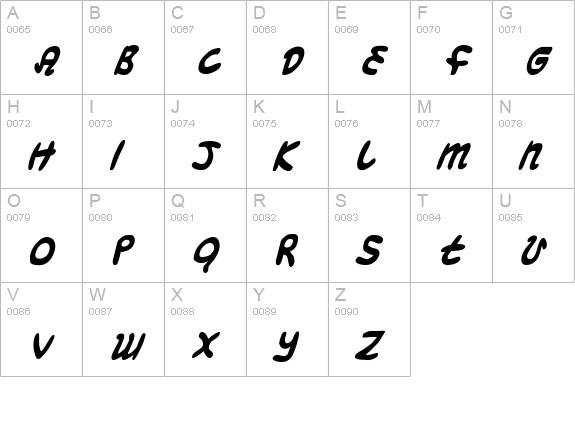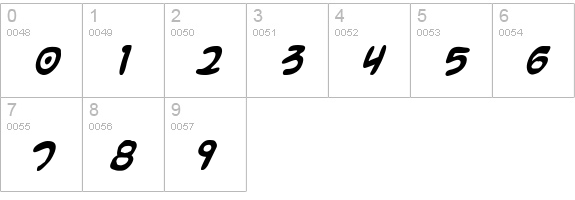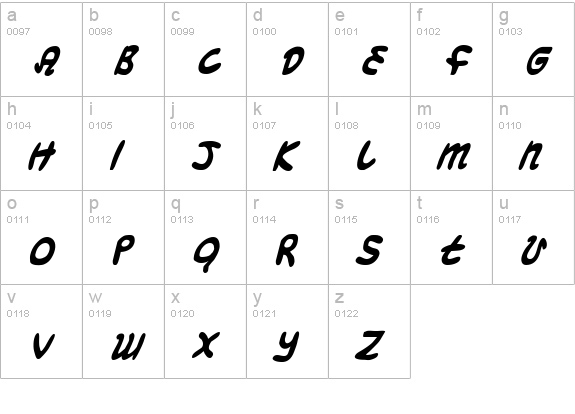
Magic Beans Condensed Italic Font Details
Magic Beans Condensed Italic is a distinctive, condensed-width, italic variant in the Magic typeface family \xE2\x80\x94 well suited to design and typography projects.
Magic Beans Condensed Italic font is a whimsical and playful typeface that adds a touch of magic to any design project. Its elegant and slanted italic style exudes a sense of creativity and uniqueness, making it perfect for branding, invitations, and other creative endeavors. This font features a condensed design that allows for more text to be displayed in a limited space without sacrificing readability. The slender and curvy letterforms of Magic Beans Condensed Italic give a sense of flow and movement, making it a great choice for projects that require a dynamic and energetic feel. Best of all, Magic Beans Condensed Italic font is freely available to download at FontsMarket.com. Whether you're a designer looking to add a touch of magic to your projects or a creative individual seeking a unique font for personal use, this font is sure to inspire and delight. Download it today and let your imagination soar with Magic Beans Condensed Italic font.